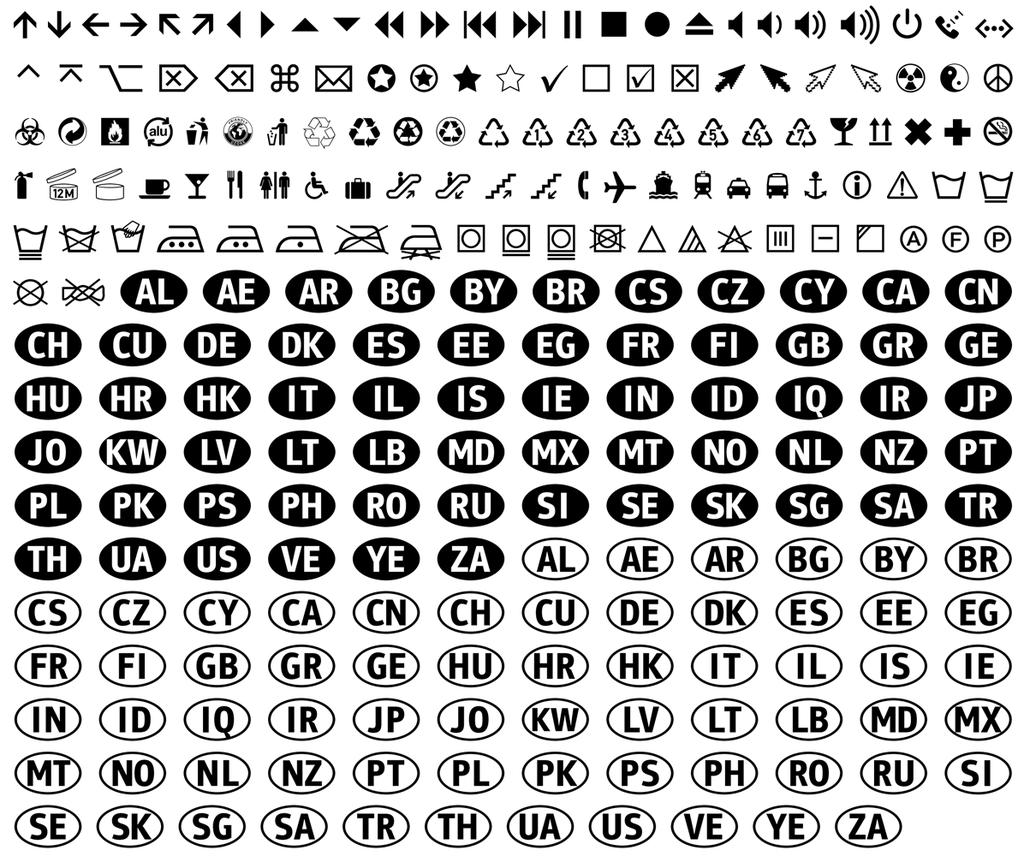
1 2007 PARACHUTE FONTS sophisticated opentype fonts for designers creatives visionaries and trendsetters SPECIMEN MANUAL PF Square Sans Pro OpenType PS supports Latin, Greek, Cyrillic, Eastern European, Turkish, Baltic, Vietnamese 1197 glyphs /font professional kerning for all languages 19 opentype features /font 12 weights
6 fontcredits square sans pro. Designer Panos Vassiliou created Square Sans Pro in his quest for a true square-like text typeface which could balance simplicity with vitality and enhance with its subtle power the identity of any product or service, without compromising its characteristics as a text typeface. The family consists of 12 fonts -from extrablack to thin- including true italics. It supports 19 special opentype features like small caps, fractions, ordinals, etc. and offers multilingual support for all European languages including Greek and Cyrillic. Finally, every font in this family has been completed with 270 copyright-free symbols, some of which have been proposed by several international organizations for packaging, public areas, environment, transportation, computers, fabric care and urban life. format οpentype PS scripts latin, greek, cyrillic, eastern european, turkish, baltic, vietnamese glyphs 1197 /font kerning applied to all languages pro features 19 weights 12 recommended for catalogs, magazines designer Panos Vassiliou copyright 2007 Parachute Worldwide all rights reserved
8 stylesfontweights Thin Thin Italic AeΕf БеЕъ εeξ Light Light Italic AeΕf БеЕъ εeξ Regular Italic AeΕf БеЕъ εeξ Medium Medium Italic AeΕf БеЕъ εeξ Bold Bold Italic AeΕf БеЕъ εeξ Extra Black Italic AeΕf БеЕъ εeξ NOTE: All weights contain the same pro features, the same language range and the full character set as seen on page copyright 2007 Parachute Worldwide all rights reserved